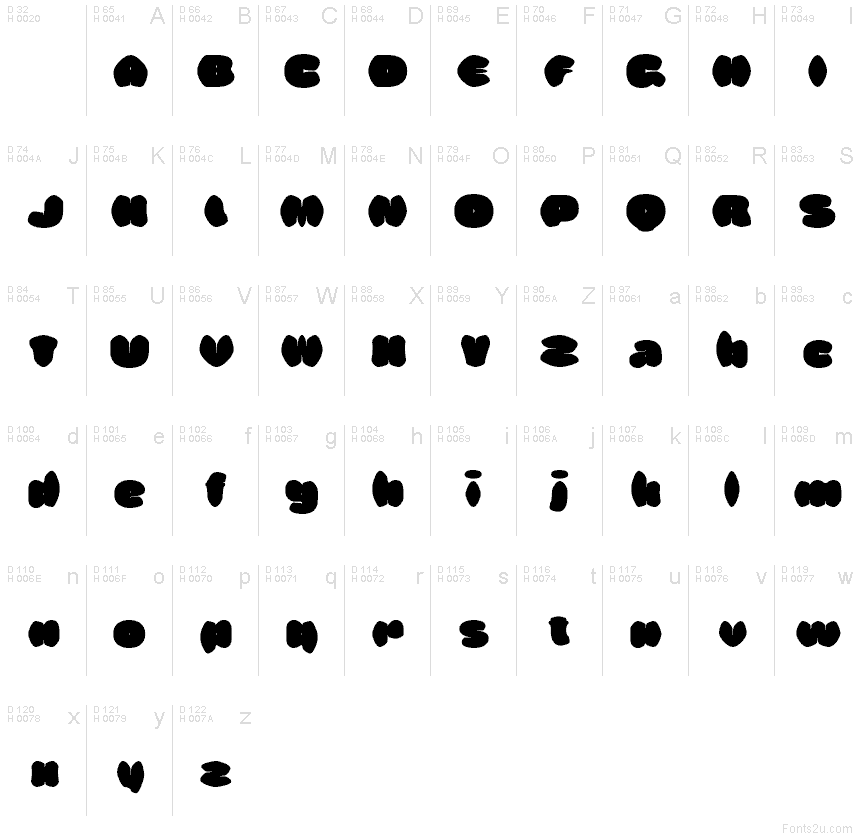
CSBrokenDrawn-Regular Demo
CS Broken Drawn font by Craft Supply Co. is an irregular display font with a cartoon style, bold weight, and expanded width features. Chunky and whimsical, the letters are made from lines of different sizes which makes for visually engaging appearances. The retro-inspired typeface can construct unique typography projects that instantly capture the viewer’s attention.
Use it to design posters and magazine covers as well as headers for social media campaigns or platform profiles. Other use cases include logos, branding and packaging designs for children’s products like comic books and toys.
CS Broken Drawn Demo